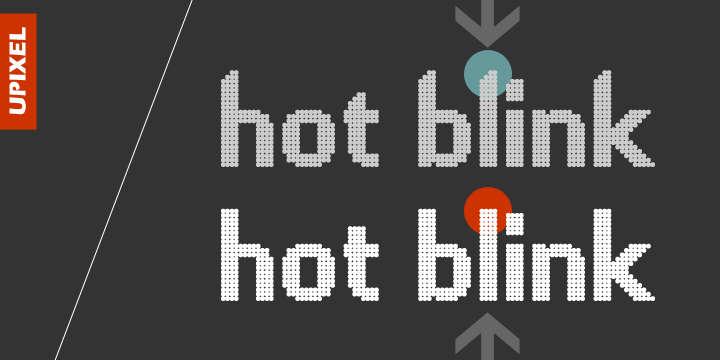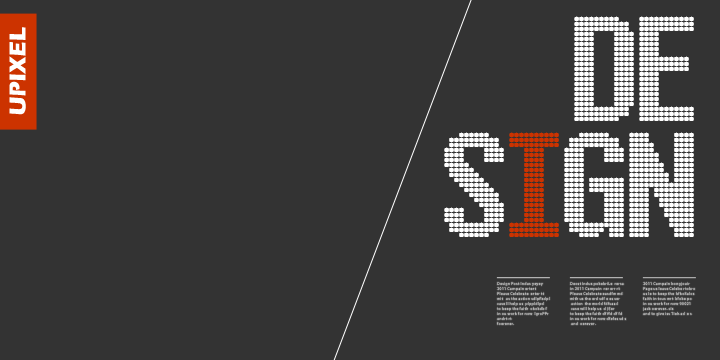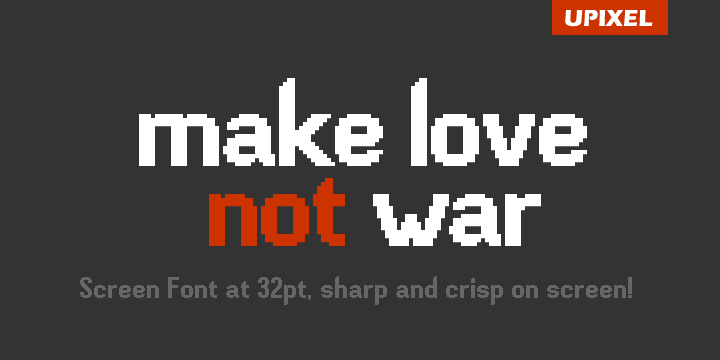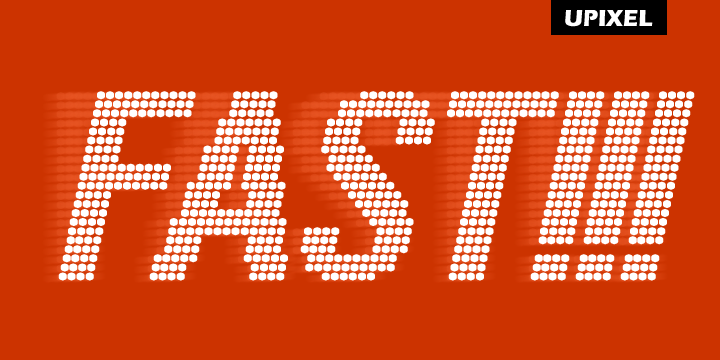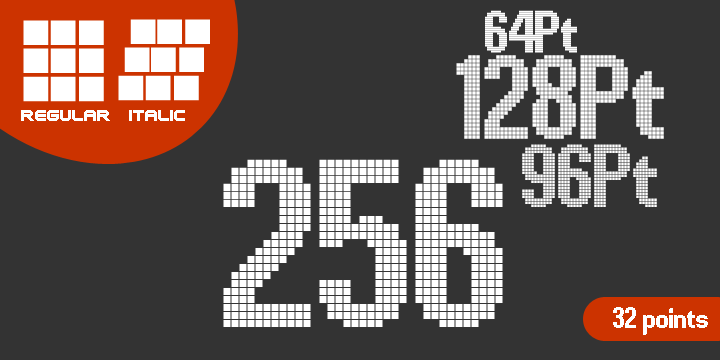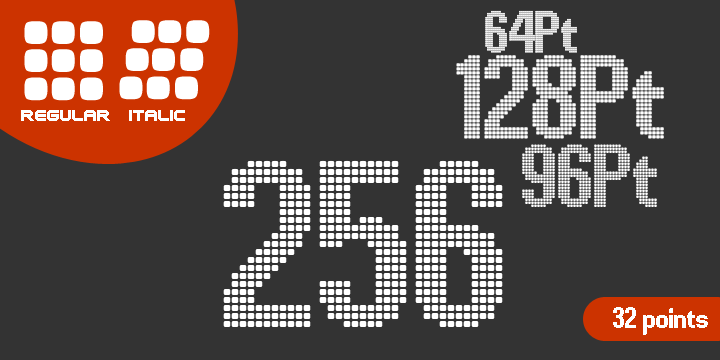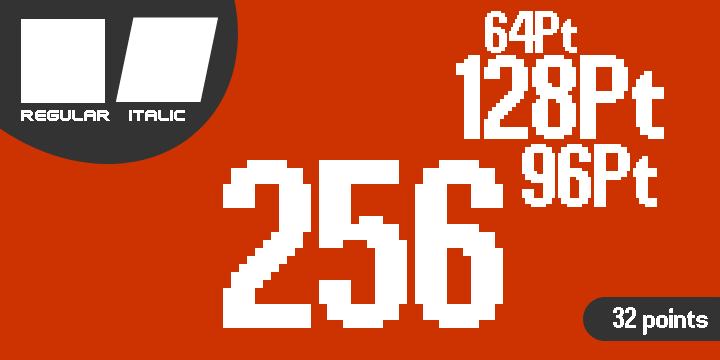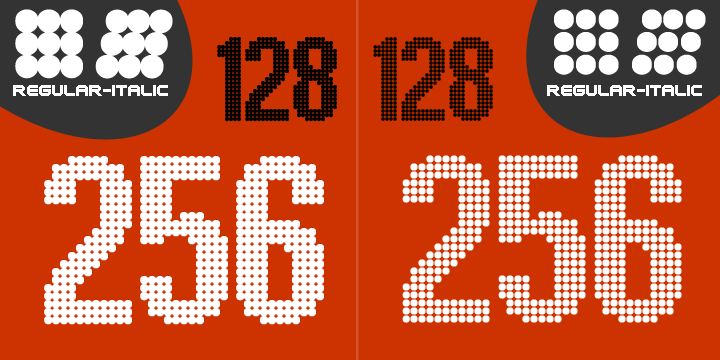
Kolly Font Family
The best of both worlds: good for small screen resolutions and nice output at larger sizes.
• Designers: Michel Troy
Kolly Rsq80
Kolly Rsq80 Italic
Kolly Lcd90
Kolly Lcd90 Italic
Kolly Dot90
Kolly Dot90 Italic
Kolly Dot100
Kolly Dot100 Italic
Kolly Std 32
Kolly Std 32 Italic